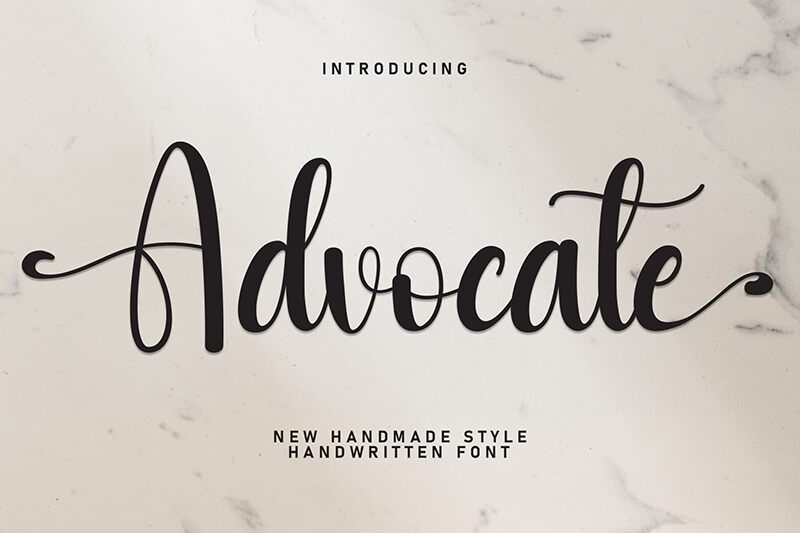
Advocate font
Advocate
This is a sweet and friendly handwritten display font. Cute and fun, this font is ideal for writing wedding invitations, cards, or any other design that might need a playful touch!